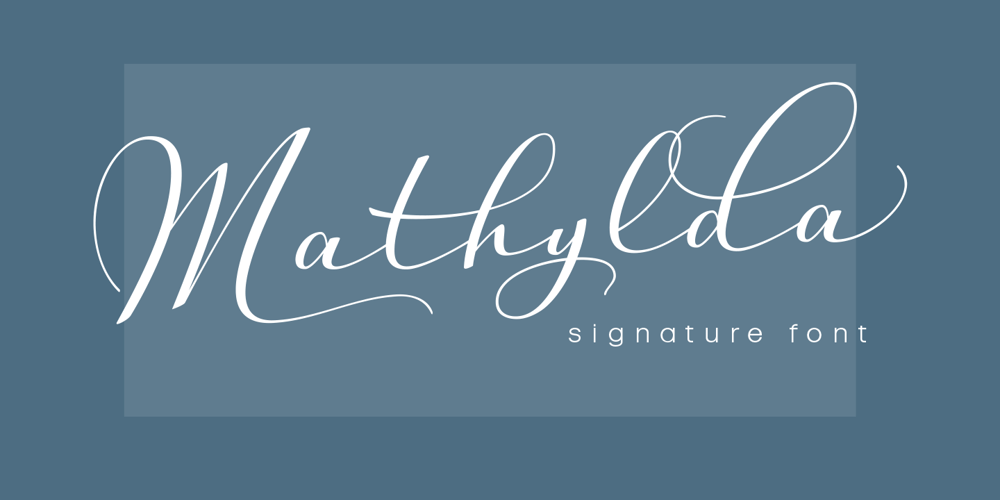
Mathylda Script Font Family was designed by Carine de Wandeleer and published by Eurotypo. Mathylda Script contains 1 styles and family package options. Mathylda Script is an elegant and youthful handwritten calligraphic font with thin and thick strokes depending on the inclination of the pen. It has many stylistic variations, swashes and ligatures. “Mathylda” will allow you to create elegant works. Mathylda Script font is the great choice for any project from logos, magazines and book covers, children’s material, fashion, headlines, cards, posters, websites, packaging and, basically, anywhere you want.